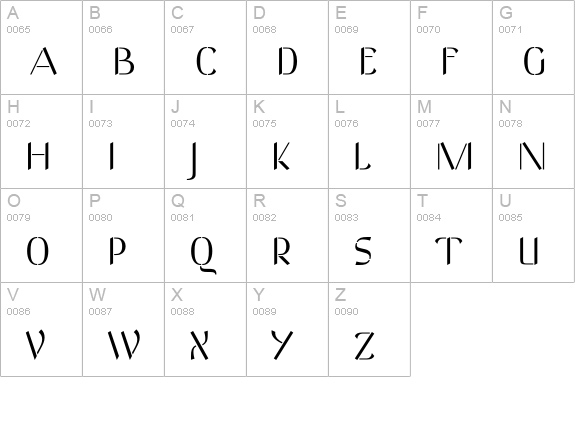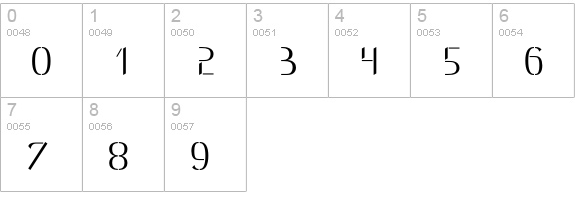
Bijoux Font Details
Bijoux font is a stunning and elegant typeface that exudes sophistication and charm. With its delicate curves and intricate details, this font is perfect for adding a touch of luxury to your designs. Whether you're creating wedding invitations, branding materials, or elegant signage, Bijoux font is sure to make a statement. The best part? Bijoux font is completely free to download at FontsMarket.com. That's right, you can elevate your design projects with this exquisite font without having to spend a dime. Don't miss out on the opportunity to enhance your creations with the timeless beauty of Bijoux font. Download it today and let your creativity shine!